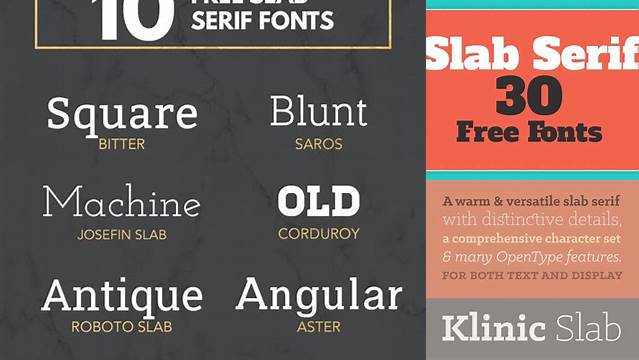
Free Slab Serif Fonts: Download Now!
Hey guys! Are you looking to spice up your design projects with some awesome fonts? Look no further! Today, we're diving deep into the world of free slab serif fonts. These fonts are not only versatile but also add a touch of classic and modern flair to any project. Whether you're working on a website, a poster, or even a simple document, having the right font can make all the difference. So, let's get started and explore the best free slab serif fonts available right now!
What are Slab Serif Fonts?
Before we jump into the list of freebies, let's understand what slab serif fonts actually are. Unlike their more delicate serif cousins, slab serifs are characterized by thick, block-like serifs. These serifs are usually the same thickness as the main strokes of the letter, giving them a bold and sturdy appearance. Sometimes they're called Egyptian fonts, although that term isn't as common anymore. Historically, these fonts gained popularity in advertising due to their high readability and attention-grabbing nature. This made them perfect for posters and headlines. Nowadays, slab serif fonts are still used extensively in branding, editorial design, and web design. They can convey strength, reliability, and a sense of tradition, making them a great choice for projects aiming to project these qualities. Their distinct look sets them apart from other font styles, making them an excellent choice for adding visual interest to any design.
Why Use Slab Serif Fonts?
So, why should you even bother with slab serif fonts? Well, for starters, they’re incredibly versatile. You can use them for headlines, body text, and even logos. Their bold nature makes them stand out, ensuring your message gets noticed. They also have a unique personality that can add character to your designs. Whether you’re going for a vintage feel or a modern, industrial look, slab serifs can deliver. Plus, many slab serif fonts are highly readable, making them a great choice for longer blocks of text. They strike a balance between being visually interesting and easily legible, which is crucial for user experience. Ultimately, using a slab serif font can elevate your design and give it a distinct edge.
1. Best Free Slab Serif Fonts for Headlines
When it comes to headlines, you need a font that grabs attention and makes a statement. The best free slab serif fonts for headlines are bold, impactful, and easy to read at a glance. Think about using fonts with thicker strokes and pronounced serifs to really make your headlines pop. These fonts are perfect for posters, banners, and website headers. They should be able to convey the essence of your message quickly and effectively. For example, a font like Roboto Slab or Arvo can add a touch of modernity and sophistication to your headlines. Experiment with different sizes and weights to find the perfect balance that complements your overall design. Remember, the headline is the first thing people see, so make it count with a strong slab serif font.
2. Top Free Slab Serif Fonts for Body Text
While slab serif fonts are often associated with headlines, there are plenty of great options for body text as well. The key here is readability. You want a font that’s easy on the eyes and doesn’t cause fatigue, especially for longer articles or documents. Look for slab serif fonts with slightly thinner strokes and well-defined letterforms. Fonts like Bitter and Slabo 27px are excellent choices because they maintain readability while still offering that distinctive slab serif look. A good slab serif font for body text should blend seamlessly into the background, allowing the content to shine. Consider the spacing between letters and lines to ensure optimal readability. Choosing the right slab serif font for body text can significantly enhance the user experience and make your content more engaging.
3. Modern Slab Serif Fonts: Free Options
Looking for something a bit more contemporary? There are tons of modern slab serif fonts available for free that blend the classic slab serif style with a modern twist. These fonts often feature clean lines, geometric shapes, and a minimalist design. They’re perfect for brands that want to convey a sense of innovation and sophistication. Fonts like Museo Slab and Raleway Slab offer a sleek and stylish look that works well in a variety of contexts. Modern slab serif fonts can be used for websites, logos, and marketing materials to create a cohesive and contemporary brand identity. They strike a balance between tradition and modernity, making them a versatile choice for any design project. Always check the licensing to ensure the font can be used for commercial purposes.
4. Vintage Slab Serif Fonts: Free Finds
If you're aiming for a retro or vintage aesthetic, vintage slab serif fonts are the way to go. These fonts often have a distressed or weathered look, adding character and charm to your designs. Think of old-fashioned advertisements and posters – that’s the vibe you’re going for. Fonts like Playfair Display (although technically a transitional serif, it can often work in a similar context) and some of the bolder options in the public domain can evoke a sense of nostalgia and authenticity. These vintage slab serif fonts are perfect for creating logos, packaging, and posters with a classic feel. They can also add a unique touch to websites and social media graphics. When using vintage slab serif fonts, consider pairing them with other vintage-inspired elements to create a cohesive and authentic design.
5. Bold Slab Serif Fonts for Free Download
Need a font that really packs a punch? Bold slab serif fonts are your best bet. These fonts feature thick, heavy strokes that demand attention. They’re perfect for headlines, posters, and logos that need to make a statement. Fonts like Roboto Slab Black and Bebas Neue (though technically sans-serif, the boldness provides a similar impact) are excellent choices for creating a strong and impactful visual identity. Bold slab serif fonts can convey confidence, strength, and authority. They work well in a variety of contexts, from sports branding to industrial design. When using bold slab serif fonts, make sure to balance them with other elements in your design to avoid overwhelming the viewer. Less is often more when it comes to bold fonts.
6. Light Slab Serif Fonts Available for Free
On the opposite end of the spectrum, light slab serif fonts offer a more delicate and refined look. These fonts feature thin strokes and subtle serifs, making them perfect for adding a touch of elegance to your designs. They’re great for body text, captions, and smaller headlines. Fonts like Arvo Light and lighter weights of Roboto Slab can create a sense of sophistication and subtlety. Light slab serif fonts work well in designs that require a more understated approach. They can also be used to create contrast with bolder fonts in a design hierarchy. When using light slab serif fonts, make sure to pay attention to readability, as the thin strokes can sometimes be difficult to see on certain backgrounds.
7. Narrow Slab Serif Fonts You Can Get for Free
Narrow slab serif fonts are a great option when you need to fit a lot of text into a small space. These fonts are condensed, meaning they have a smaller width than regular fonts. They’re perfect for headlines, captions, and sidebars where space is limited. Fonts like Oswald (again, technically sans-serif but offers a similar condensed feel) and condensed versions of other slab serif fonts can help you maximize the use of space without sacrificing readability. Narrow slab serif fonts are particularly useful in print design, where page real estate is often at a premium. They can also be used in web design to create a more streamlined and efficient layout. Just be careful not to make them too narrow, as this can negatively impact readability.
8. Wide Slab Serif Fonts for Free Use
Wide slab serif fonts, on the other hand, offer a more expansive and open feel. These fonts have a larger width than regular fonts, making them perfect for headlines and display text. They can create a sense of grandeur and importance. Fonts like extended versions of Roboto Slab or Bebas Neue can add a touch of drama to your designs. Wide slab serif fonts are often used in advertising and branding to grab attention and make a bold statement. They can also be used in web design to create a more visually striking layout. When using wide slab serif fonts, make sure to balance them with other elements in your design to avoid overwhelming the viewer. Give them plenty of space to breathe.
9. Rounded Slab Serif Fonts: Free Picks
Rounded slab serif fonts offer a softer and more approachable look compared to their sharp-edged counterparts. These fonts feature rounded corners and edges, giving them a friendly and inviting feel. They’re perfect for designs that need to convey warmth and playfulness. Fonts like Arvo Rounded (if you can find a rounded version) and similar styles can be used for logos, websites, and marketing materials aimed at a younger audience. Rounded slab serif fonts are also a great choice for designs that need to be accessible and easy to read. They can create a sense of comfort and familiarity, making them a popular choice for a variety of applications. When using rounded slab serif fonts, consider pairing them with bright colors and playful graphics to enhance the overall effect.
10. Slab Serif Fonts with Italics: Free Options
Having italics in a slab serif font family can be incredibly useful for adding emphasis and creating a visual hierarchy in your designs. Italics can help you highlight important information, create contrast, and add a touch of elegance. Look for slab serif fonts that offer a complete set of italic styles to ensure consistency throughout your design. Fonts like Roboto Slab and Arvo typically include italic versions, making them versatile choices for a variety of projects. Slab serif fonts with italics are particularly useful for longer blocks of text where you need to draw attention to specific words or phrases. They can also be used in captions, quotes, and pull-quotes to add visual interest.
11. Slab Serif Fonts for Logos: Free Choices
Choosing the right font for your logo is crucial for creating a strong and memorable brand identity. Slab serif fonts can be an excellent choice for logos because they convey strength, reliability, and a sense of tradition. Look for slab serif fonts that are bold, impactful, and easy to read at a glance. Fonts like Roboto Slab Black and Bebas Neue (with adjustments) can be used to create a logo that stands out and makes a statement. Slab serif fonts for logos should also be versatile enough to work in a variety of contexts, from business cards to websites. Consider the overall aesthetic of your brand when choosing a slab serif font for your logo. It should reflect the values and personality of your business.
12. Web-Safe Slab Serif Fonts: Free and Reliable
When designing for the web, it’s important to choose fonts that are web-safe, meaning they are widely available and supported by most browsers. This ensures that your website will look consistent across different devices and platforms. Some of the most web-safe slab serif fonts include Roboto Slab, Arvo, and Slabo 27px. These fonts are available for free on Google Fonts and are easy to embed into your website. Using web-safe slab serif fonts can also improve your website’s performance, as the browser doesn’t have to download additional font files. Always test your website on different browsers and devices to ensure that your chosen font is displaying correctly.
13. Slab Serif Fonts for Print: Free and High-Quality
For print projects, you need fonts that are high-quality and legible in a variety of sizes. Slab serif fonts can be an excellent choice for print because they are bold, impactful, and easy to read. Look for slab serif fonts that have well-defined letterforms and are available in a variety of weights and styles. Fonts like Roboto Slab and Arvo are great options for print projects because they are versatile and offer excellent readability. Slab serif fonts for print should also be scalable without losing quality. Always test your designs in print before sending them to the printer to ensure that your chosen font is displaying correctly.
14. Monospace Slab Serif Fonts: Free Options Available
Monospace slab serif fonts are a unique and interesting option for designs that need a technical or industrial feel. These fonts feature characters that are all the same width, creating a uniform and consistent look. They’re often used in coding environments and for displaying code snippets. While less common, you can find free monospace slab serif fonts that offer a distinctive and eye-catching aesthetic. These fonts can be used for websites, posters, and logos that need to convey a sense of precision and accuracy. When using monospace slab serif fonts, make sure to pay attention to readability, as the uniform width can sometimes make it difficult to distinguish between characters.
15. Slab Serif Fonts for Social Media: Free and Engaging
In the fast-paced world of social media, it’s important to use fonts that grab attention and engage your audience. Slab serif fonts can be an excellent choice for social media graphics because they are bold, impactful, and easy to read on small screens. Look for slab serif fonts that are versatile and work well in a variety of contexts, from headlines to captions. Fonts like Roboto Slab and Arvo are great options for social media because they are available for free and offer excellent readability. Slab serif fonts for social media should also be visually appealing and reflect the personality of your brand. Consider using different weights and styles to create a visual hierarchy and emphasize important information.
16. Display Slab Serif Fonts: Free for Commercial Use
Display slab serif fonts are designed to be used in large sizes for headlines, posters, and other display purposes. These fonts are often more stylized and decorative than regular fonts, making them perfect for creating a bold and eye-catching visual impact. Look for free display slab serif fonts that are licensed for commercial use, so you can use them in your projects without any legal concerns. These fonts can add a touch of personality and flair to your designs, making them stand out from the crowd. When using display slab serif fonts, make sure to balance them with other elements in your design to avoid overwhelming the viewer. Less is often more when it comes to display fonts.
17. Slab Serif Fonts Inspired by Wood Type: Free Finds
Slab serif fonts inspired by wood type evoke a sense of vintage charm and craftsmanship. These fonts are reminiscent of the hand-carved wooden letters used in early printing presses. They often have a distressed or weathered look, adding character and authenticity to your designs. You can find free slab serif fonts that capture the essence of wood type, allowing you to create designs with a classic and timeless feel. These fonts are perfect for logos, packaging, and posters that need to convey a sense of history and tradition. When using slab serif fonts inspired by wood type, consider pairing them with other vintage-inspired elements to create a cohesive and authentic design.
18. Slab Serif Fonts with Texture: Free Resources
Adding texture to a slab serif font can create a unique and visually appealing effect. Slab serif fonts with texture often have a distressed, grainy, or rough appearance, adding depth and dimension to your designs. You can find free resources that offer slab serif fonts with built-in textures, allowing you to create designs with a vintage or industrial feel. These fonts are perfect for logos, posters, and websites that need to convey a sense of authenticity and character. When using slab serif fonts with texture, make sure to balance them with other elements in your design to avoid overwhelming the viewer. A little texture can go a long way.
19. Slab Serif Fonts with Alternate Characters: Free Access
Having alternate characters in a slab serif font family can be incredibly useful for adding variety and customization to your designs. Alternate characters can include different letterforms, ligatures, and swashes, allowing you to create unique and personalized typography. Look for slab serif fonts that offer free access to alternate characters, so you can explore different design options and create a truly custom look. These fonts are perfect for logos, branding materials, and other designs that need to stand out from the crowd. When using slab serif fonts with alternate characters, experiment with different combinations to find the perfect look for your project.
20. Slab Serif Fonts with Numerals: Free for Everyone
Having well-designed numerals in a slab serif font is essential for creating professional and polished designs. Numerals are used in a variety of contexts, from pricing to dates to statistics, so it’s important to choose a font that has clear and legible numerals. Look for slab serif fonts that offer free numerals that are consistent with the overall design of the font. These fonts are perfect for websites, reports, and other documents that need to display numerical information. When using slab serif fonts with numerals, make sure to pay attention to the spacing and alignment to ensure optimal readability.
21. How to Pair Slab Serif Fonts: Free Tips
Pairing fonts effectively is crucial for creating visually appealing and balanced designs. When pairing slab serif fonts, it’s important to consider the overall aesthetic and purpose of your design. Here are some free tips for pairing slab serif fonts: Combine a slab serif font with a sans-serif font to create contrast and visual interest. Use a slab serif font for headlines and a sans-serif font for body text, or vice versa. Pair a bold slab serif font with a lighter weight sans-serif font to create a visual hierarchy. Use different sizes and weights to create a sense of balance and harmony. Experiment with different combinations until you find the perfect pairing for your project.
22. Best Websites to Download Free Slab Serif Fonts
Finding high-quality free slab serif fonts can be a challenge, but there are several websites that offer a wide selection of free fonts for commercial use. Some of the best websites to download free slab serif fonts include Google Fonts, Font Squirrel, and DaFont. These websites offer a variety of slab serif fonts in different styles and weights, so you can find the perfect font for your project. Always check the licensing agreement before using a font to ensure that it is free for commercial use. With a little bit of research, you can find tons of amazing free slab serif fonts to enhance your designs.
23. Understanding Slab Serif Font Licensing: Free Guide
Understanding font licensing is essential for ensuring that you are using fonts legally and ethically. Font licenses specify how you are allowed to use a font, including whether it is free for commercial use or only for personal use. Here's a free guide to understanding slab serif font licensing: Check the licensing agreement before using a font. Look for fonts that are licensed under the SIL Open Font License (OFL), which allows for free commercial use. Be aware of restrictions on modifying or redistributing fonts. If you are unsure about the licensing of a font, contact the font designer or distributor for clarification. By understanding font licensing, you can avoid legal issues and support the work of font designers.
24. Slab Serif Fonts in Branding: Free Ideas
Slab serif fonts can be a powerful tool for creating a strong and memorable brand identity. They convey strength, reliability, and a sense of tradition. Here are some free ideas for using slab serif fonts in branding: Use a bold slab serif font for your logo to create a strong and impactful visual. Combine a slab serif font with a complementary color palette to create a cohesive brand identity. Use slab serif fonts in your marketing materials to reinforce your brand message. Choose a slab serif font that reflects the values and personality of your brand. By using slab serif fonts effectively, you can create a brand that stands out and resonates with your target audience.
25. Slab Serif Fonts in Web Design: Free Tips
Slab serif fonts can add character and personality to your web designs. They are versatile and work well in a variety of contexts, from headlines to body text. Here are some free tips for using slab serif fonts in web design: Choose a web-safe slab serif font to ensure that your website looks consistent across different browsers and devices. Use slab serif fonts for headlines to grab attention and create a visual hierarchy. Pair a slab serif font with a sans-serif font for body text to improve readability. Pay attention to the spacing and kerning to ensure that your chosen font is legible on screen. By using slab serif fonts effectively, you can create a website that is both visually appealing and user-friendly.
26. Slab Serif Fonts in Editorial Design: Free Resources
Slab serif fonts can add a touch of sophistication and elegance to your editorial designs. They are versatile and work well in a variety of contexts, from magazines to books. Here are some free resources for using slab serif fonts in editorial design: Use slab serif fonts for headlines and subheadings to create a visual hierarchy. Pair a slab serif font with a serif font for body text to improve readability. Use different weights and styles to create contrast and visual interest. Pay attention to the layout and spacing to ensure that your chosen font is legible and visually appealing. By using slab serif fonts effectively, you can create editorial designs that are both informative and visually stunning.
27. Slab Serif Fonts in Poster Design: Free Examples
Slab serif fonts are a popular choice for poster design because they are bold, impactful, and easy to read at a glance. They can help you grab attention and convey your message quickly and effectively. Here are some free examples of using slab serif fonts in poster design: Use a large, bold slab serif font for your headline to create a strong focal point. Combine a slab serif font with complementary colors and graphics to create a visually appealing poster. Use different weights and styles to create contrast and visual interest. Pay attention to the layout and spacing to ensure that your chosen font is legible from a distance. By using slab serif fonts effectively, you can create posters that are both eye-catching and informative.
28. Slab Serif Fonts and Accessibility: Free Guidelines
Accessibility is an important consideration in all areas of design, including typography. When choosing slab serif fonts, it’s important to ensure that they are legible and easy to read for people with disabilities. Here are some free guidelines for using slab serif fonts and accessibility: Choose fonts with clear and well-defined letterforms. Use sufficient contrast between the text and background. Avoid using excessively thin or decorative fonts. Provide alternative text for images and graphics that contain text. Use appropriate font sizes and spacing to improve readability. By following these guidelines, you can create designs that are accessible to everyone.
29. Slab Serif Fonts and Readability: Free Tips
Readability is a crucial factor in all areas of design, from websites to books to posters. When choosing slab serif fonts, it’s important to ensure that they are easy to read and understand. Here are some free tips for using slab serif fonts and readability: Choose fonts with clear and well-defined letterforms. Use sufficient contrast between the text and background. Avoid using excessively thin or decorative fonts. Pay attention to the spacing and kerning to ensure that the letters are properly spaced. Use appropriate font sizes and line heights to improve readability. By following these tips, you can create designs that are both visually appealing and easy to read.
30. Future Trends in Slab Serif Fonts: Free Predictions
The world of typography is constantly evolving, and slab serif fonts are no exception. Here are some free predictions about future trends in slab serif fonts: Expect to see more variable fonts that offer greater flexibility and customization. Look for more fonts with unique and innovative designs that push the boundaries of traditional typography. Expect to see more fonts that are optimized for digital screens and mobile devices. Look for more fonts that are designed to be accessible and inclusive. As technology continues to evolve, slab serif fonts will continue to adapt and evolve to meet the needs of designers and users.